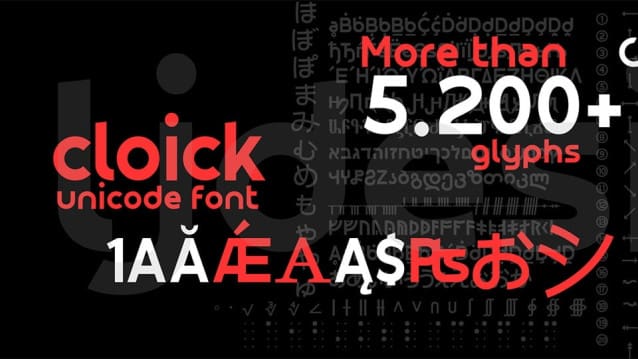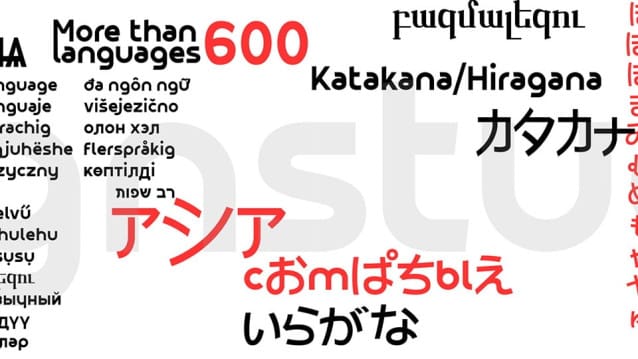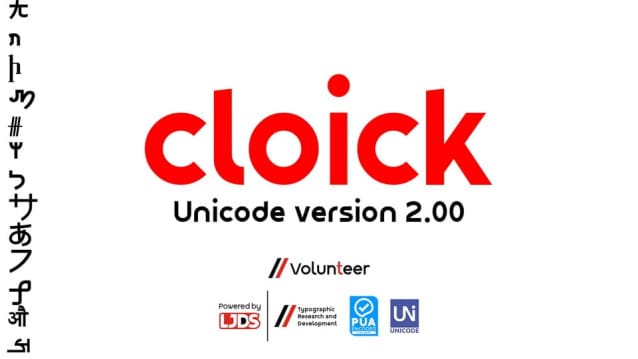
Cloick Font
Cloick Font is a typography project based on geometry and distortion of small scale contours. The purpose of the source is to group a number of important languages with a style not customary to the usual.
Cloick is a very versatile and usable typeface in any business purpose, since its design is adaptable with many of the modern and simplified trends in graphic design and conceptual illustration.